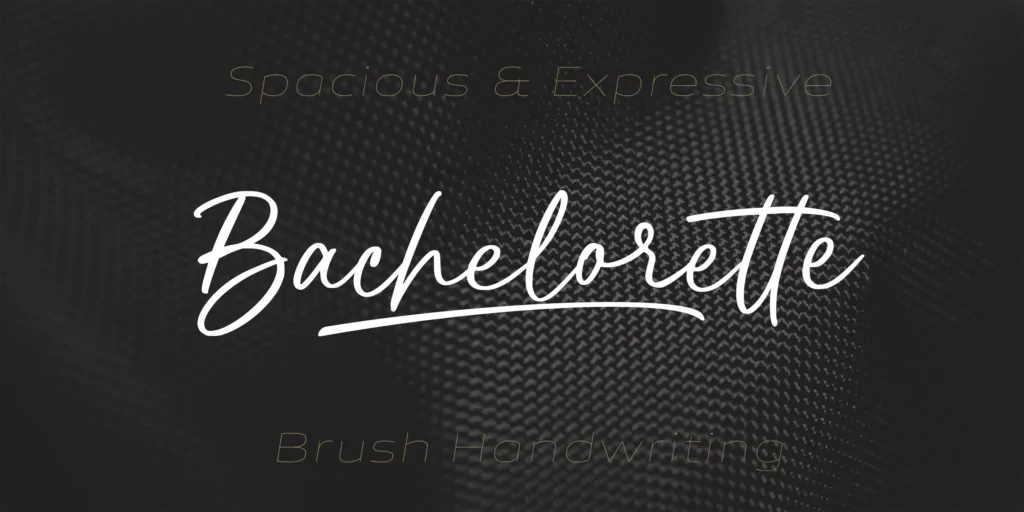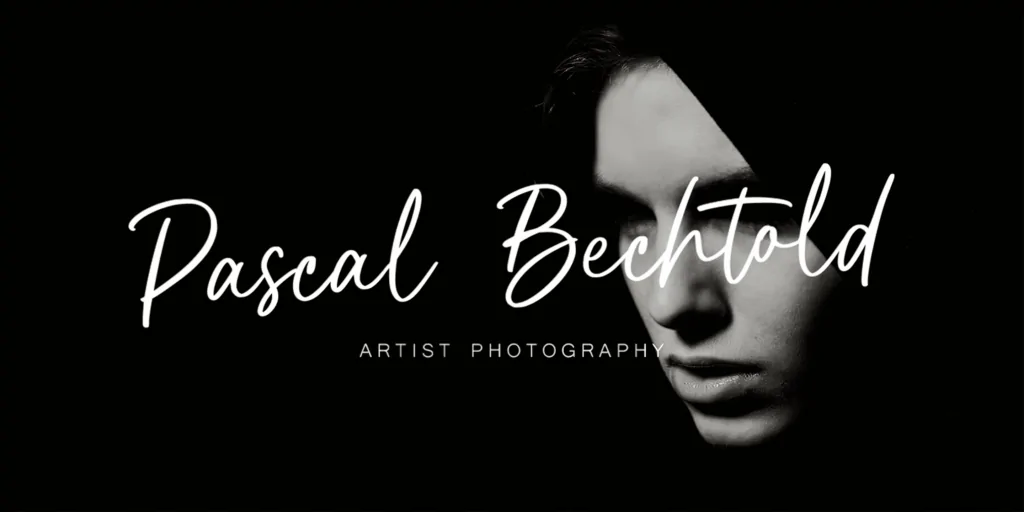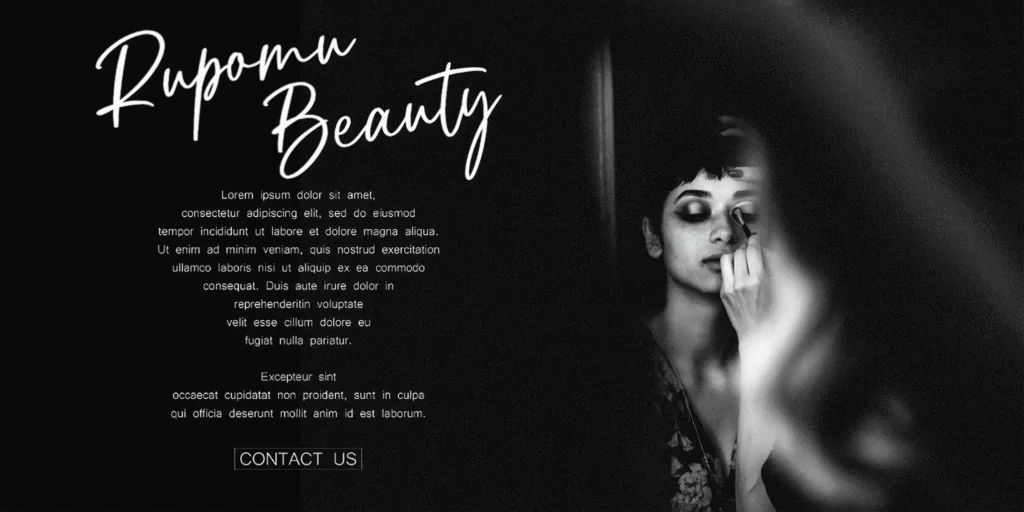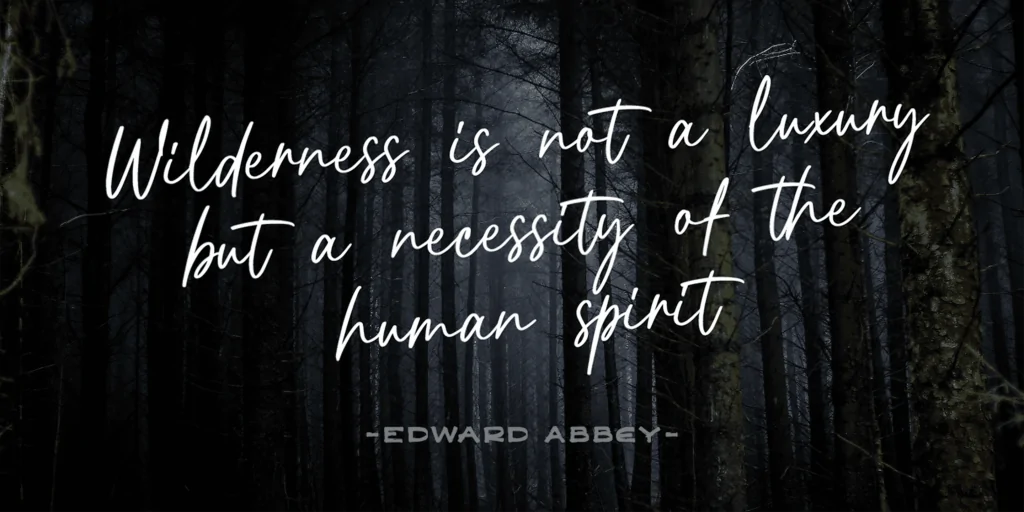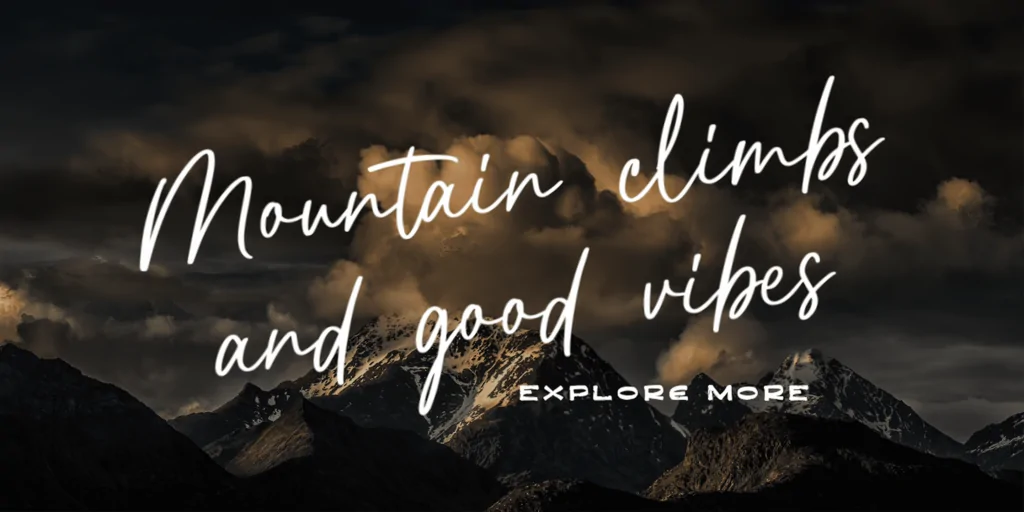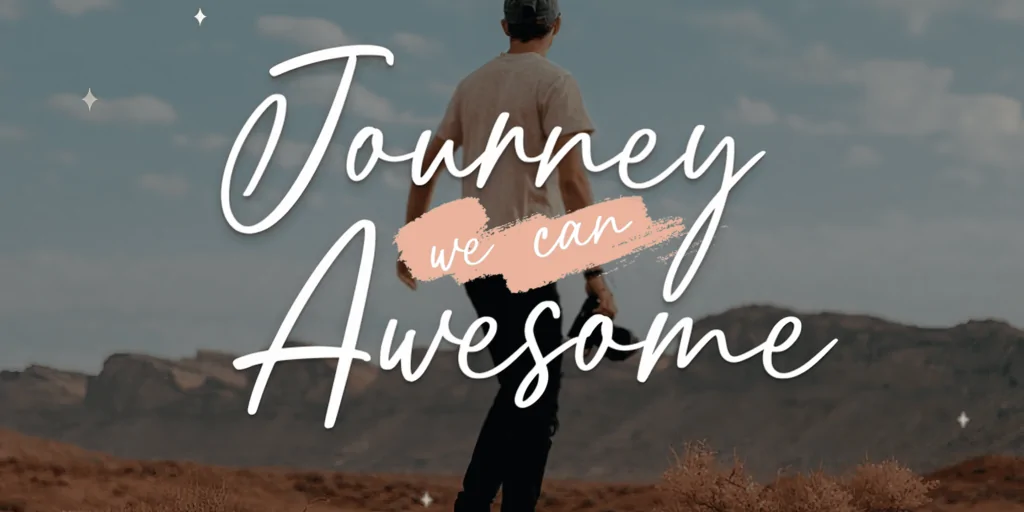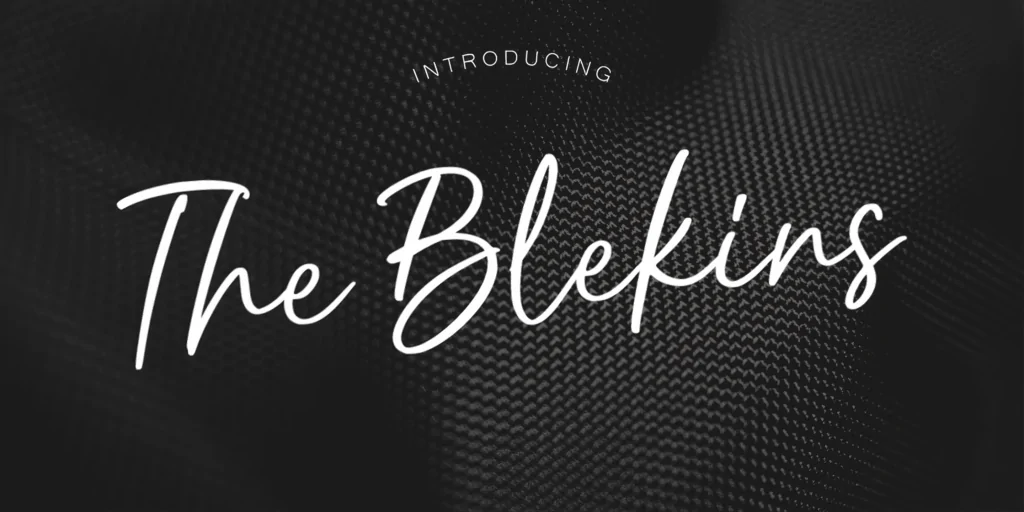
Bachelorette Font
About the Bachelorette Font
Bachelorette is a charming handwriting script font with a delicate and feminine touch. Its smooth curves and gentle strokes give it a natural and authentic look, as if it were written with a brush or pen.
Perfect for adding a personal touch to your designs, Bachelorette is versatile and can be used for anything from greeting cards and invitations to social media posts and logos.
This cute and beautiful font is designed with a focus on elegance and simplicity, making it ideal for projects that require a touch of sophistication and grace. Let Bachelorette bring a romantic and whimsical feel to your work with its soft, flowing letters and elegant swashes.
Bachelorette is available in four styles: Regular, Italic, Bold, and Bold Italic, allowing you to easily switch between different weights and styles to create dynamic and eye-catching designs.
Use underscore _ anywhere in a word to make swashes.
Example: Bach_elor
Use multiple underscores to make different swashes.
Example: Love__letter
The font is built with advanced OpenType functionality and has a guaranteed top-notch quality, containing stylistic and contextual alternates, ligatures and more features; all to give you full control and customizability.